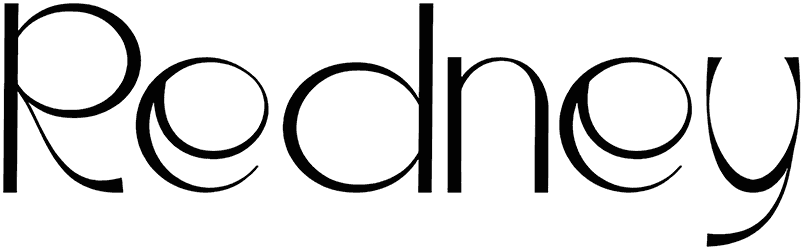
Redney Font
Enhance the beauty of your design via Redney, a stylish sans serif font that gives off a minimal, trendy touch with good readability. The elegance makes it never go out of fashion and takes care of freshness and modernity. Apply this creative font for product packaging, photo overlays, text headlines, fashion branding, and fancy invitations, then sit back and enjoy your terrific result.